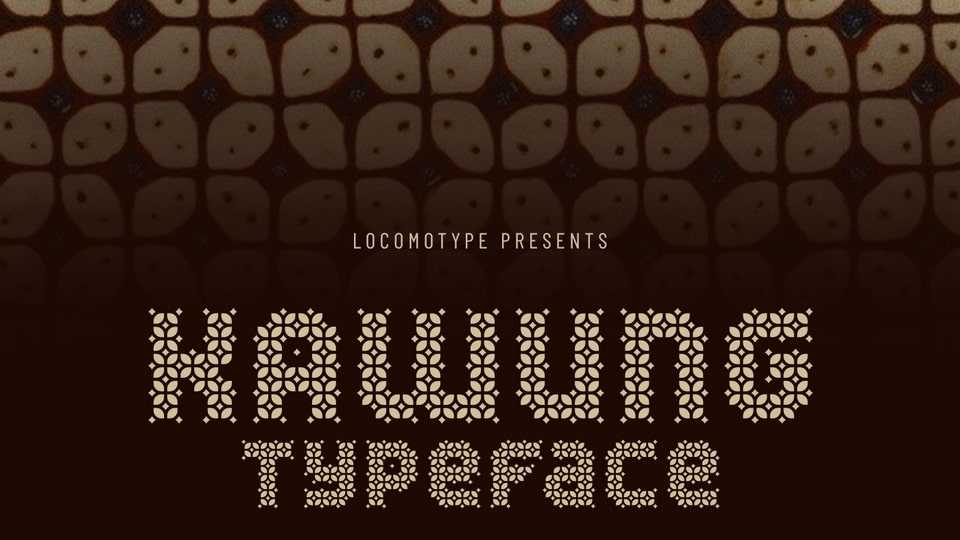
Download Kawung font, a decorative display typeface inspired by Kawung batik style. Kawung font is perfect for creating striking headlines, event posters, or any design that calls for a touch of traditional Indonesian elegance.
Designer: Locomotype